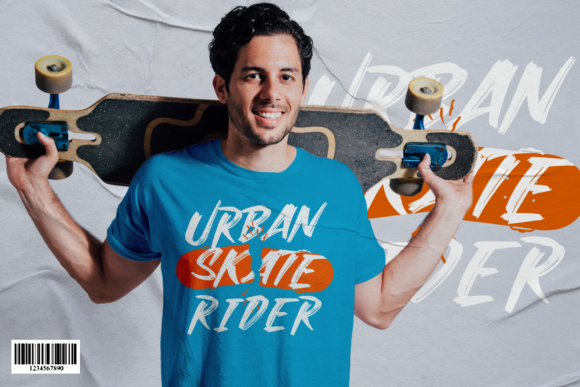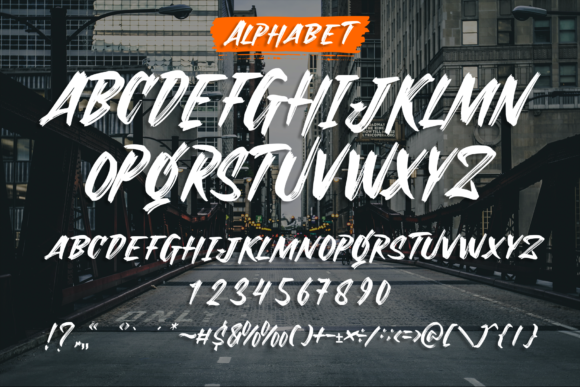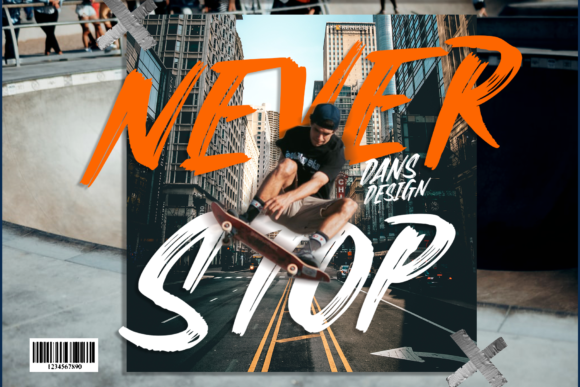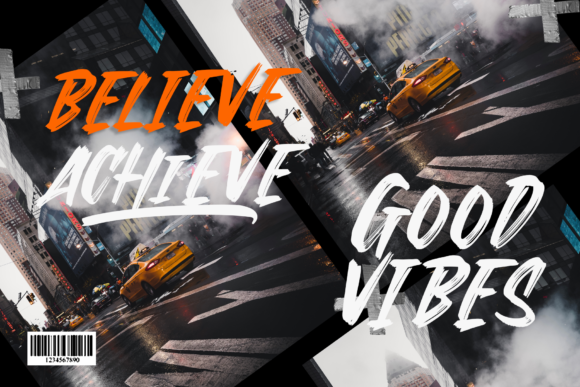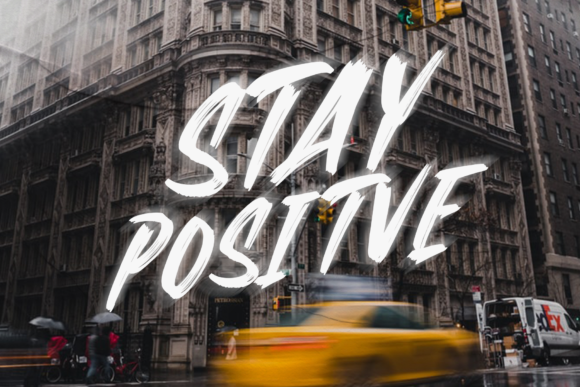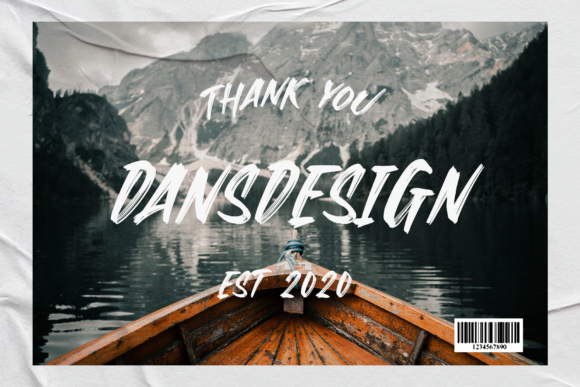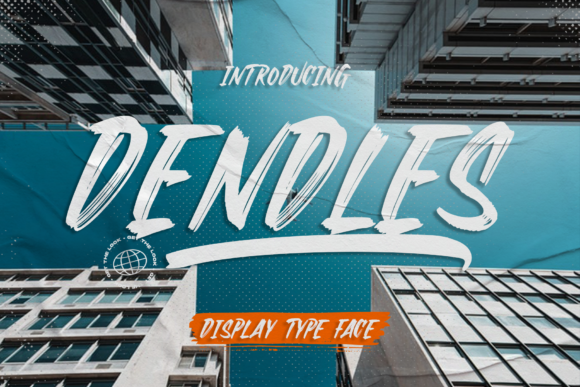
Dendles Font: Unleash Your Creativity with this Unique Display Font
Are you tired of using the same old fonts in your designs? Look no further than Dendles Font, an interesting and spectacular display font that’s sure to make your projects stand out. With its quirky and unique style, Dendles is incredibly fitting for a wide range of designs, from bold and playful to elegant and sophisticated. The only limit is your imagination!
What Makes Dendles Font So Special?
Dendles Font is a one-of-a-kind typeface that’s sure to capture attention. Its distinctive design features a mix of bold lines, curves, and irregular shapes, giving it a truly unique look that’s both modern and eye-catching. Whether you’re working on a logo, poster, or social media graphic, Dendles Font is the perfect choice for designers who want to add a touch of personality to their work.
Key Features of Dendles Font
- Unique and quirky design: Dendles Font boasts a truly one-of-a-kind design that’s sure to make your projects stand out.
- Display font perfect for headlines: With its bold and eye-catching design, Dendles Font is perfect for use in headlines, titles, and other display text.
- Versatile and adaptable: Dendles Font can be used in a wide range of designs, from playful and fun to elegant and sophisticated.
- Easy to read: Despite its unique design, Dendles Font is still easy to read, making it perfect for use in body text as well as headlines.
How to Use Dendles Font in Your Designs
Dendles Font is incredibly versatile, and can be used in a wide range of designs. Here are a few ideas to get you started:
- Logos and branding: Use Dendles Font to create a bold and eye-catching logo that’s sure to make your brand stand out.
- Posters and flyers: Add a touch of personality to your posters and flyers with Dendles Font, perfect for advertising events, promotions, and more.
- Social media graphics: Use Dendles Font to create eye-catching social media graphics that are sure to grab attention.
- Packaging design: Add a touch of whimsy to your packaging design with Dendles Font, perfect for products that want to stand out on store shelves.
Tips for Getting the Most Out of Dendles Font
To get the most out of Dendles Font, here are a few tips to keep in mind:
- Experiment with different colors: Dendles Font looks great in a wide range of colors, so don’t be afraid to experiment and find the perfect hue for your design.
- Play with font sizes: Dendles Font can be used in a wide range of font sizes, from large and bold to small and subtle.
- Combine with other fonts: Dendles Font pairs well with a wide range of other fonts, so feel free to get creative and experiment with different combinations.